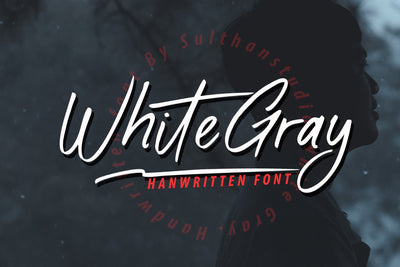
White Gray
White Gray is a signature script font with natural handwriting, this font is perfect for watermarks, invitations, stationery, wedding designs, social media posts, advertisements, product packaging, product designs, labels, photography, logos, special events and more. .
White Gray comes with many additional features which allow you to customize your text. You will get a complete set of separate upper and lowercase, multilingual, punctuation, ligatures, and swashes